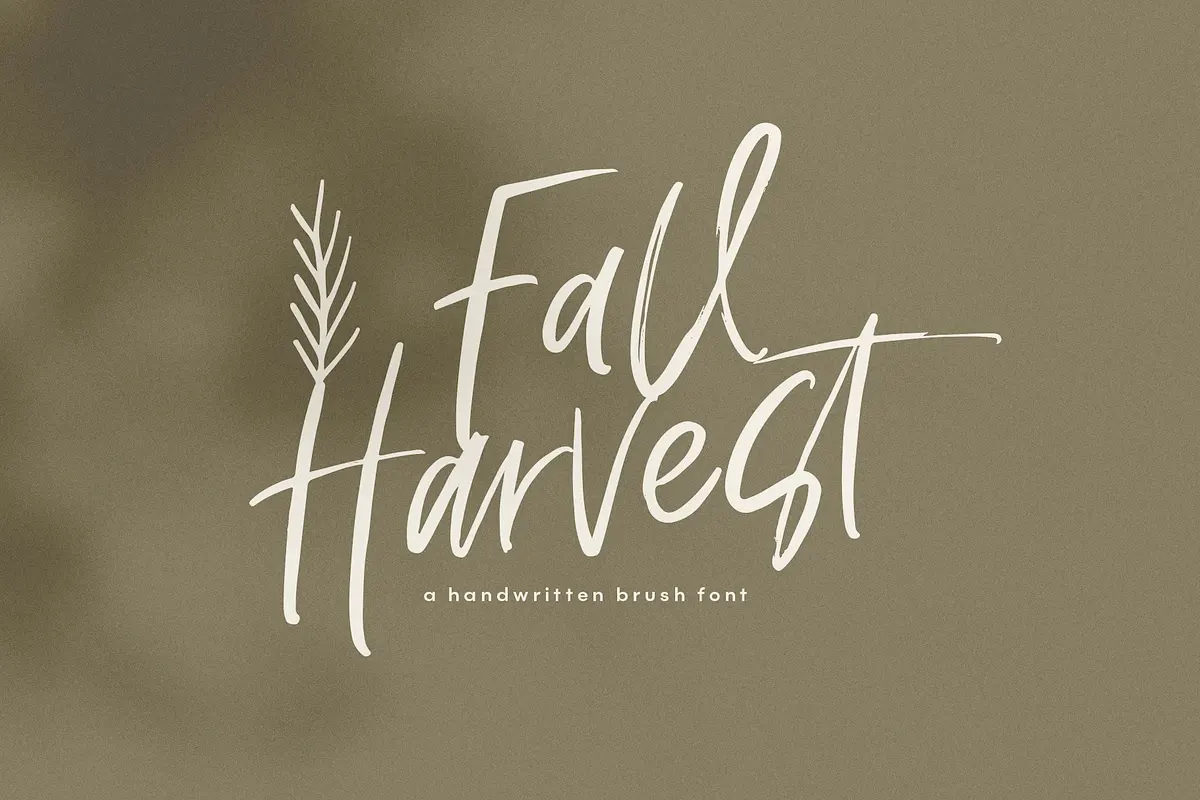
Fall Harvest - Font with Extras Free Download is a charming and seasonal typeface that captures the essence of autumn with its warm, organic letterforms. Featuring a hand-drawn style with natural, flowing curves, this font is perfect for creating cozy, rustic designs, including fall-themed invitations, product labels, seasonal branding, and more.
The extras included in the collection—such as decorative elements, swashes, and icons—offer additional creative flexibility, allowing you to enhance your designs with autumn-inspired flourishes. Whether you're crafting fall event invitations, creating a farm-to-table branding campaign, or designing autumn décor, Fall Harvest brings a delightful touch of seasonal charm.